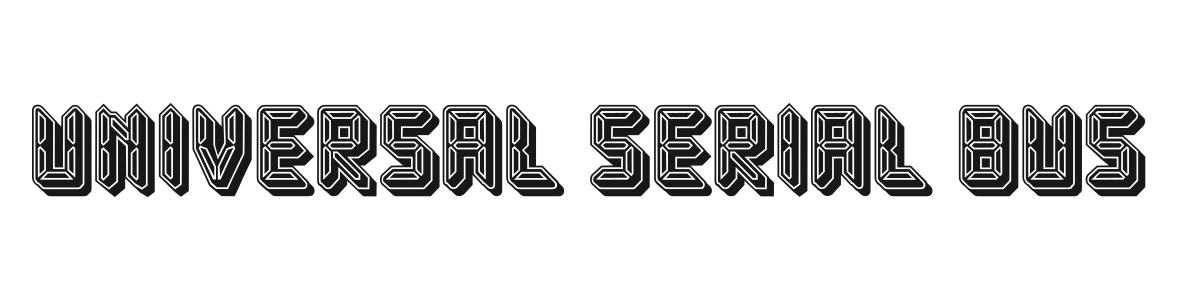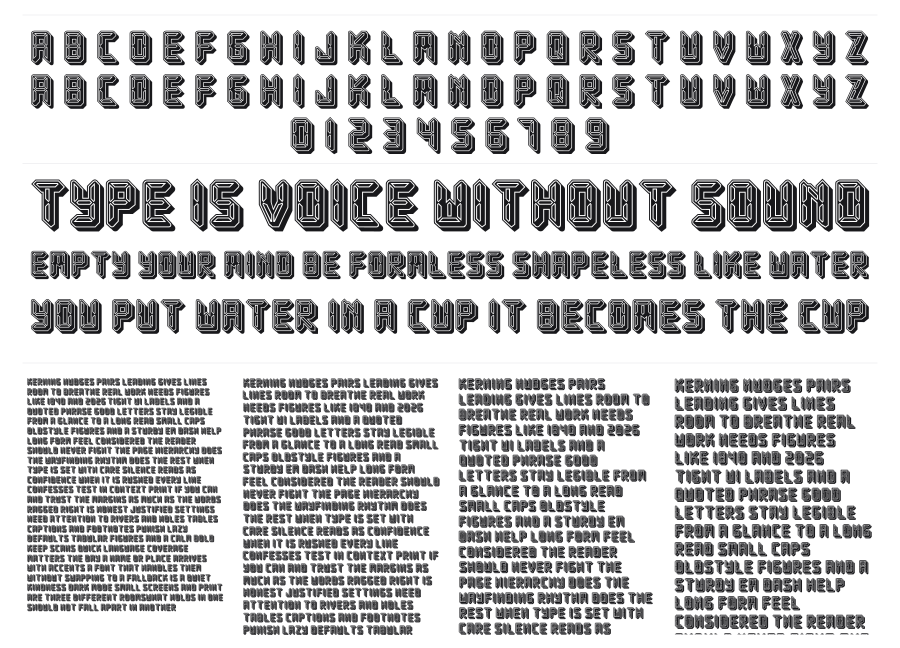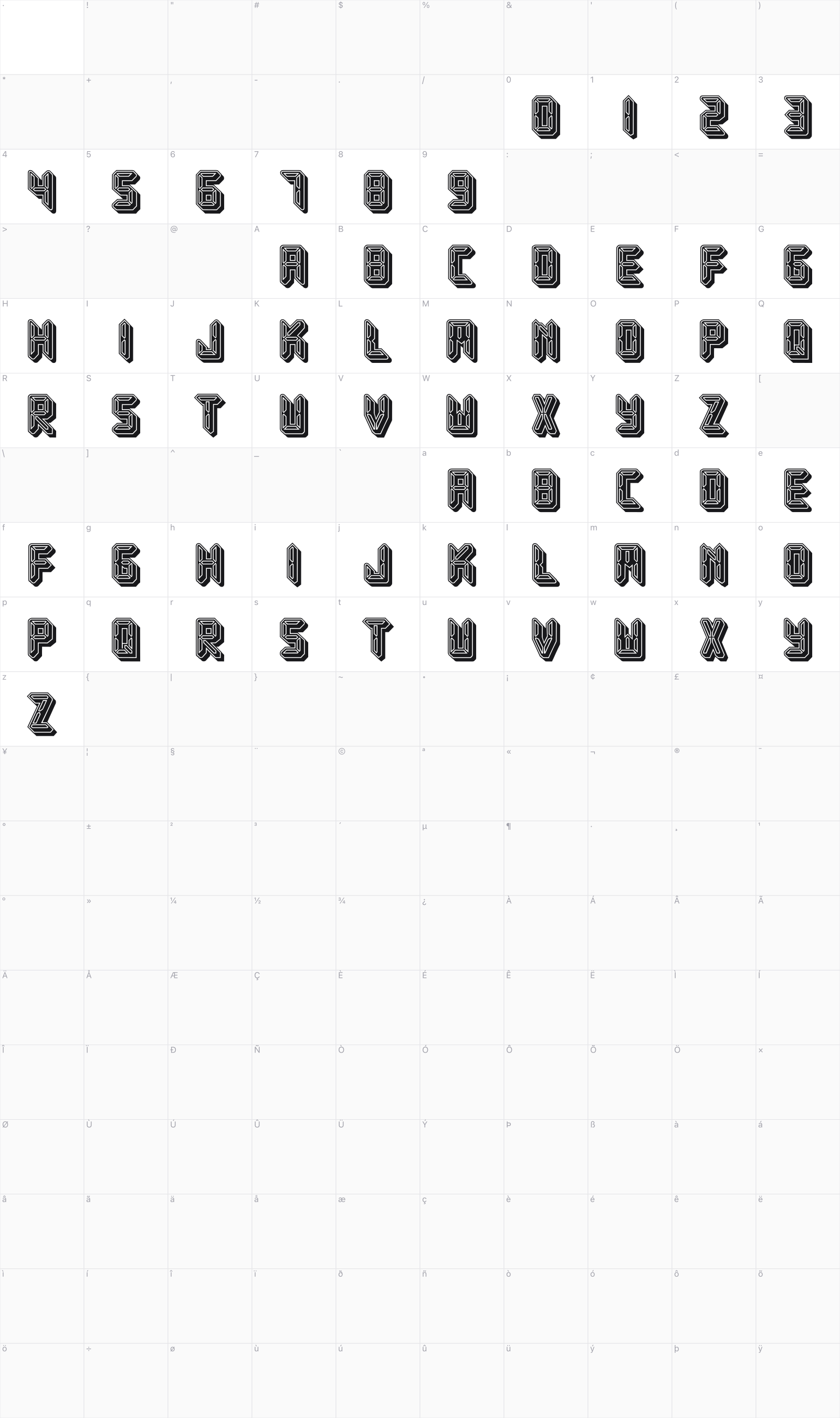
Universal Serial Bus
Universal Serial Bus is a heavy geometric display font built around a dramatic multi-layer 3D inline shadow effect. Every character looks chiseled from solid metal, with stacked inset strokes creating a sense of depth that evokes 1970s rock poster lettering. It commands attention at large sizes and carries a distinctly retro, hard-edged energy.